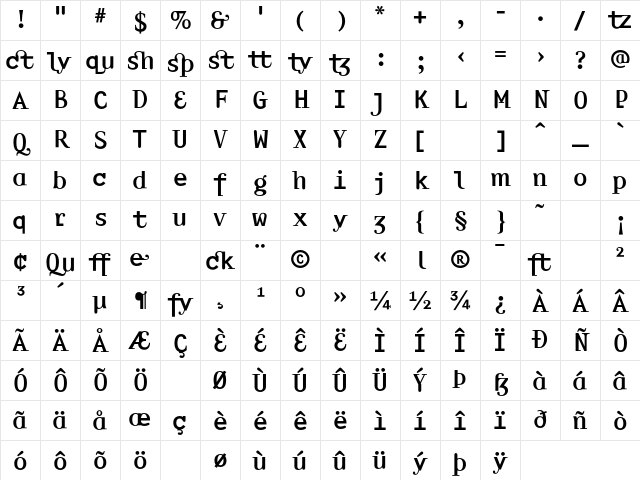
Amplifier LightLigatures Free Font
Amplifier LightLigatures
Style: LightLigatures
Amplifier Family
Amplifier LightLigatures
Design Context for Amplifier
Amplifier is a composed and adaptable typeface that performs quietly and consistently across a wide range of design contexts. Its slender proportions lend an understated elegance to any composition.